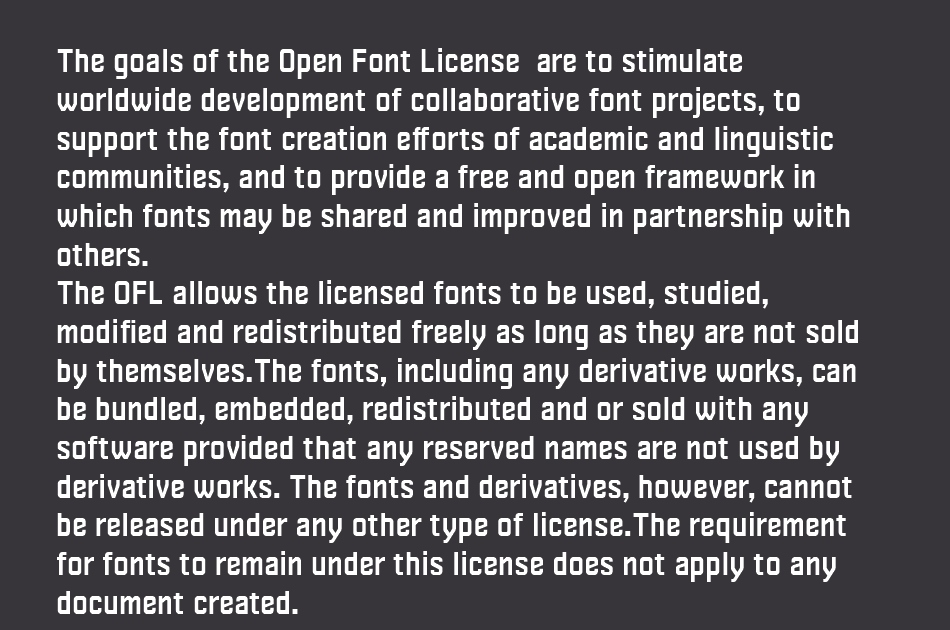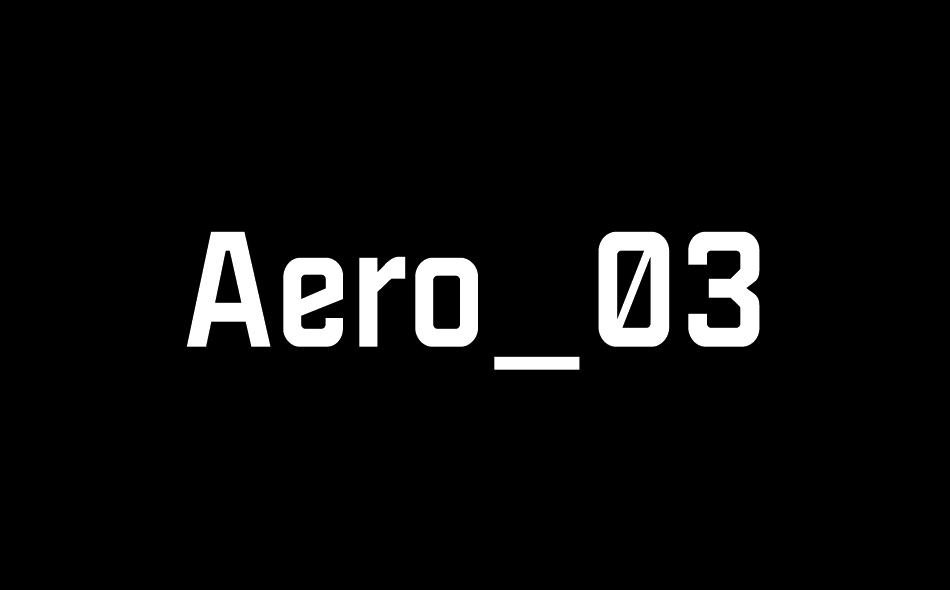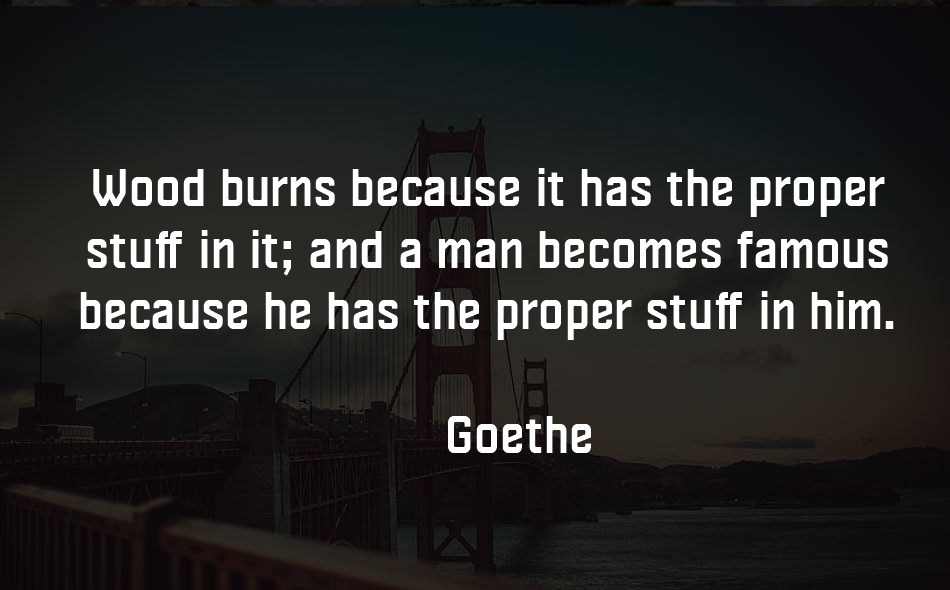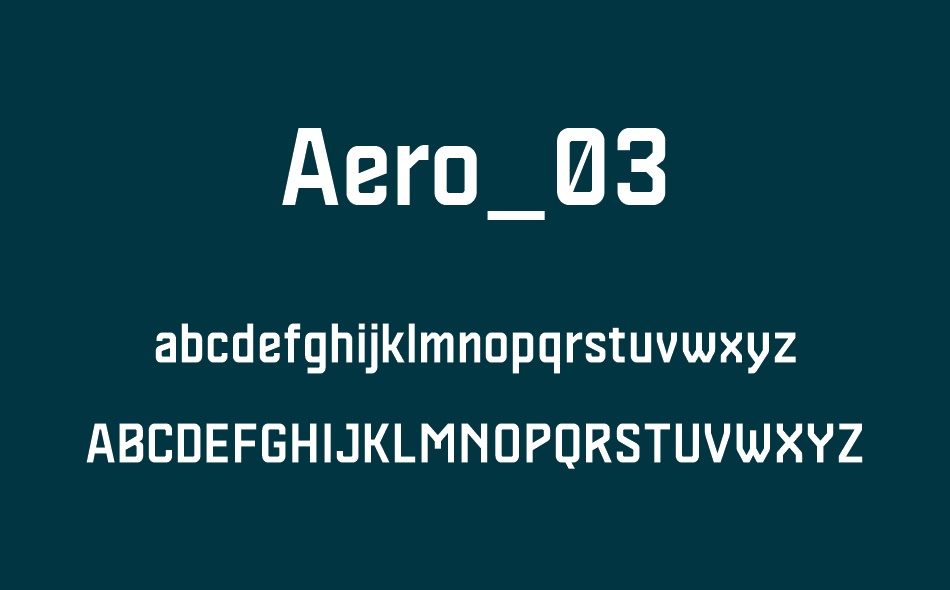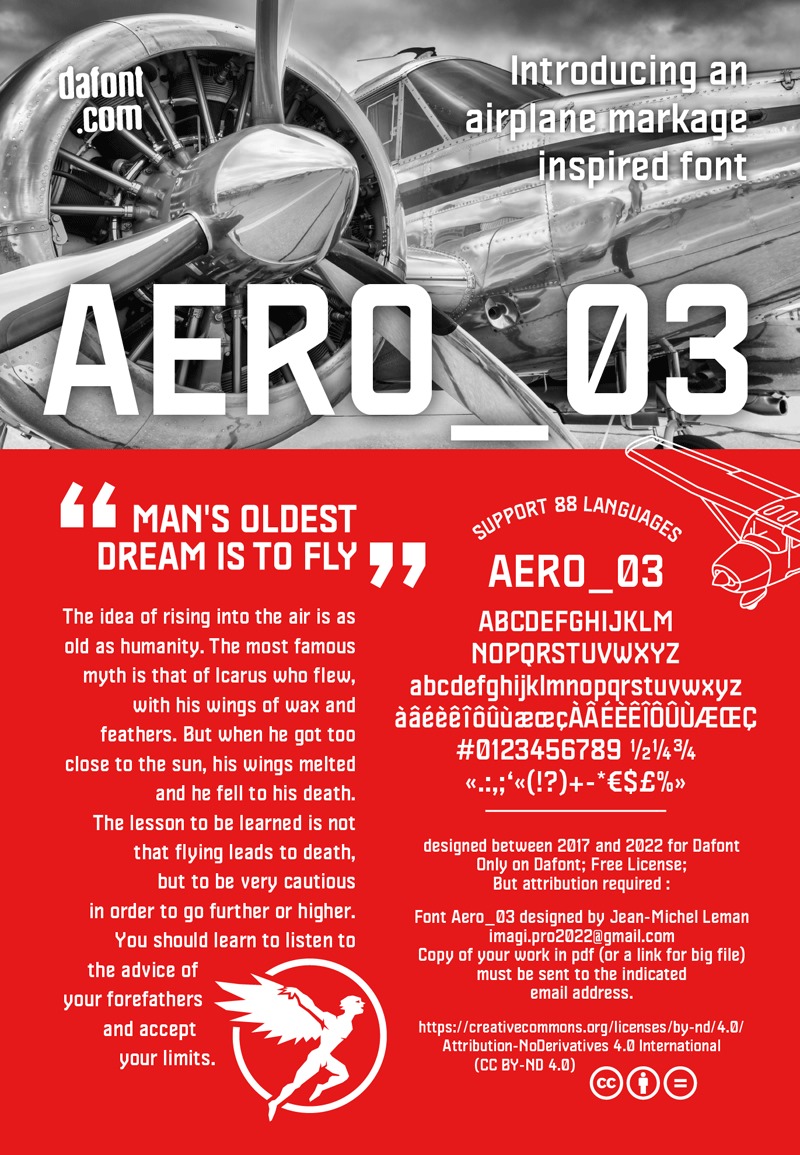
Aero 03 font
Introducing an airplane markage inspired Font : Aero_03
Designed between 2017 and 2022 for Dafont
Aero_03 is a sans-serif typeface, inspired by aircraft univers.
This font is realized on Adobe illustrator & Fontlab and support 88 languages :
Afrikaans, Albanian, Asu, Basque, Bemba, Bena, Breton, Catalan, Chiga, Colognian, Cornish, Croatian, Czech, Danish, Dutch, Embu, English, Esperanto, Estonian, Faroese, Filipino, Finnish, French, Friulian, Galician, Ganda, German, Gusii, Hungarian, Inari Sami, Indonesian, Irish, Italian, Jola-Fonyi, Kabuverdianu, Kalaallisut, Kalenjin, Kamba, Kikuyu, Kinyarwanda, Latvian, Lithuanian, Lower Sorbian, Luo, Luxembourgish, Luyia, Machame, Makhuwa-Meetto, Makonde, Malagasy, Maltese, Manx, Meru, Morisyen, Northern Sami, North Ndebele, Norwegian Bokml,Norwegian Nynorsk, Nyankole, Oromo, Polish, Portuguese, Quechua, Romanian, Romansh, Rombo, Rundi, Rwa, Samburu, Sango, Sangu, Scottish, Gaelic, Sena, Serbian, Shambala, Shona, Slovak, Soga, Somali, Spanish, Swahili, Swedish, Swiss German, Taita, Teso, Turkish, Upper Sorbian, Uzbek (Latin), Volapk, Vunjo, Walser, Zulu.
"MAN'S OLDEST DREAM IS TO FLY" The idea of rising into the air is as old as humanity. The most famous myth is that of Icarus who flew, with his wings of wax and feathers. But when he got too close to the sun, his wings melted and he fell to his death. The lesson to be learned is not that flying leads to death, but to be very cautious in order to go further or higher. You should learn to listen to the advice of your forefathers and accept your limits.